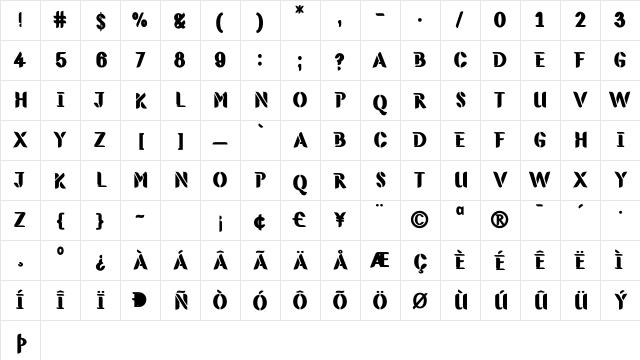
GreenTerrorCargoBay Regular
Design Context for GreenTerrorCargoBay
GreenTerrorCargoBay is a composed and adaptable typeface that performs quietly and consistently across a wide range of design contexts.